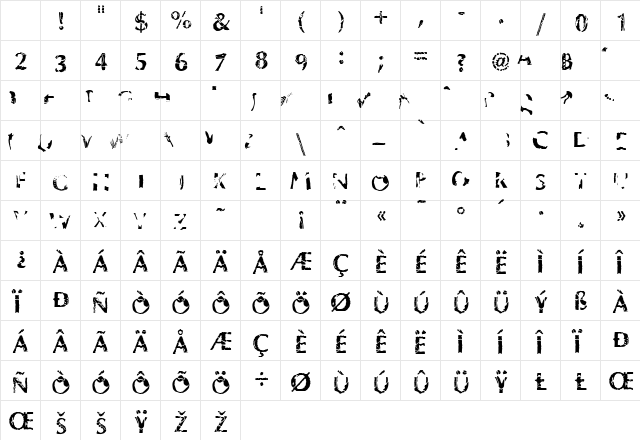
Dinosaur Fontasaurus Free Font
Dinosaur Fontasaurus
Style: Fontasaurus
Design Context for Dinosaur
Dinosaur is a composed and adaptable typeface that performs quietly and consistently across a wide range of design contexts.